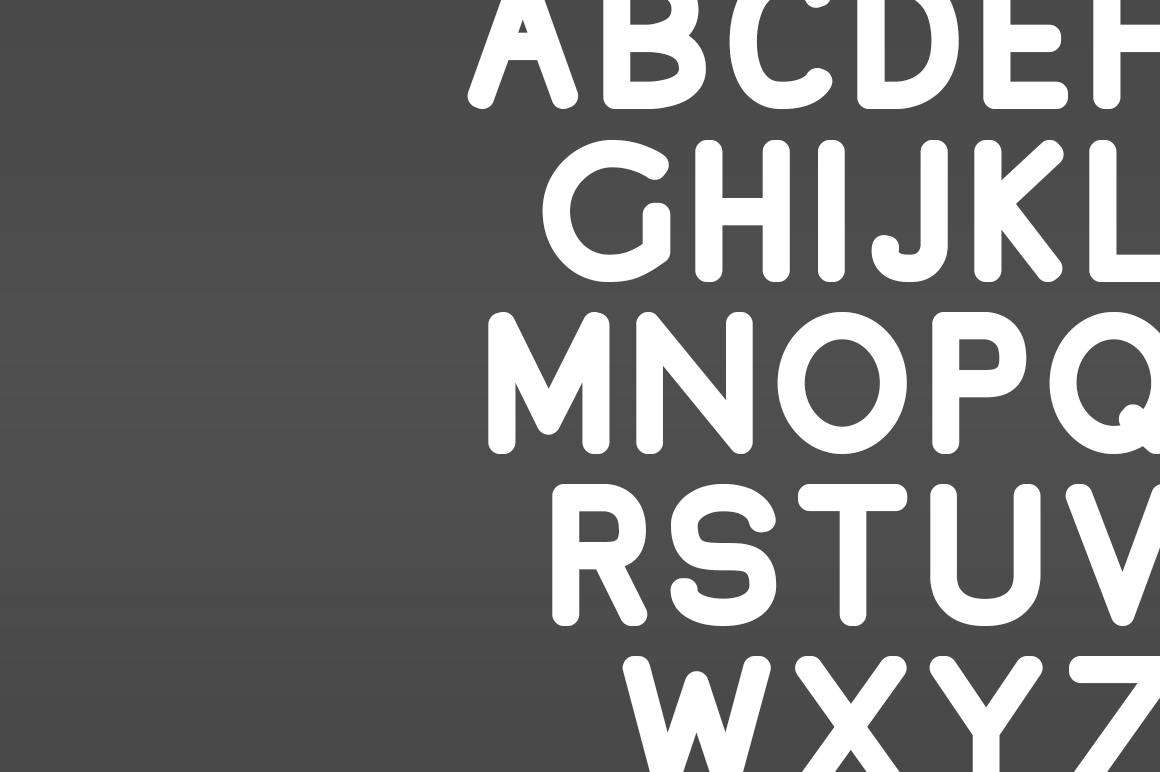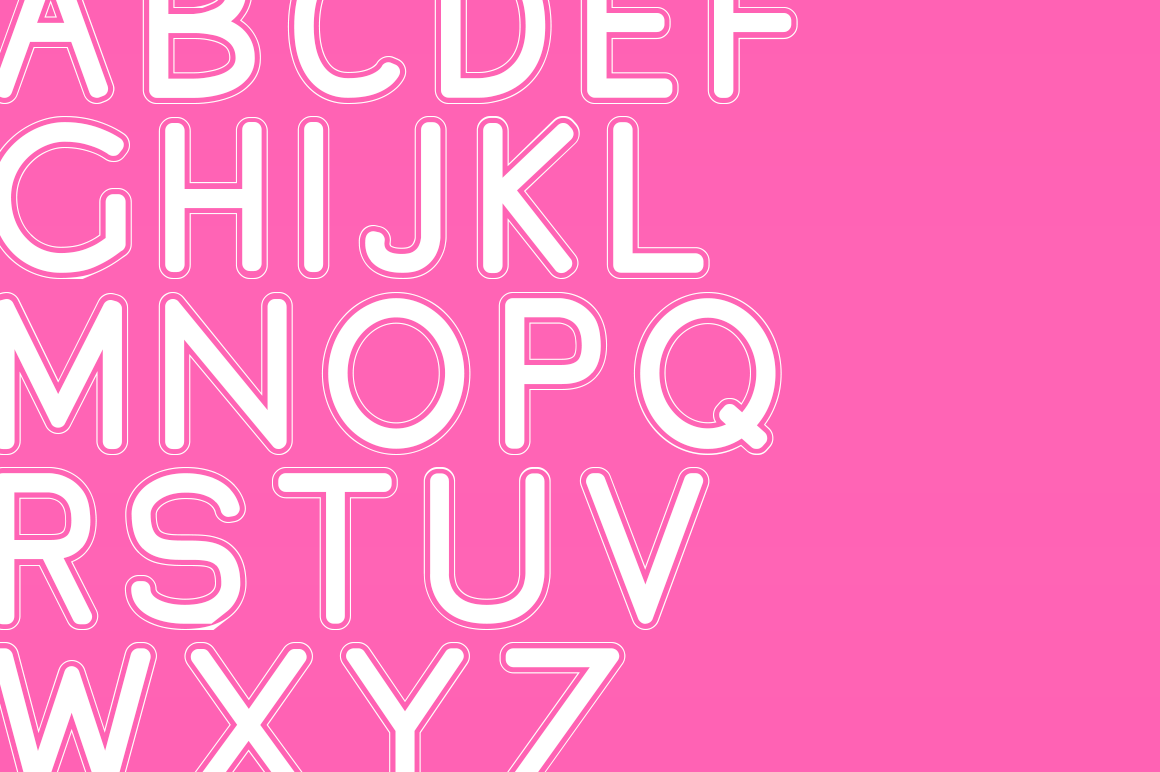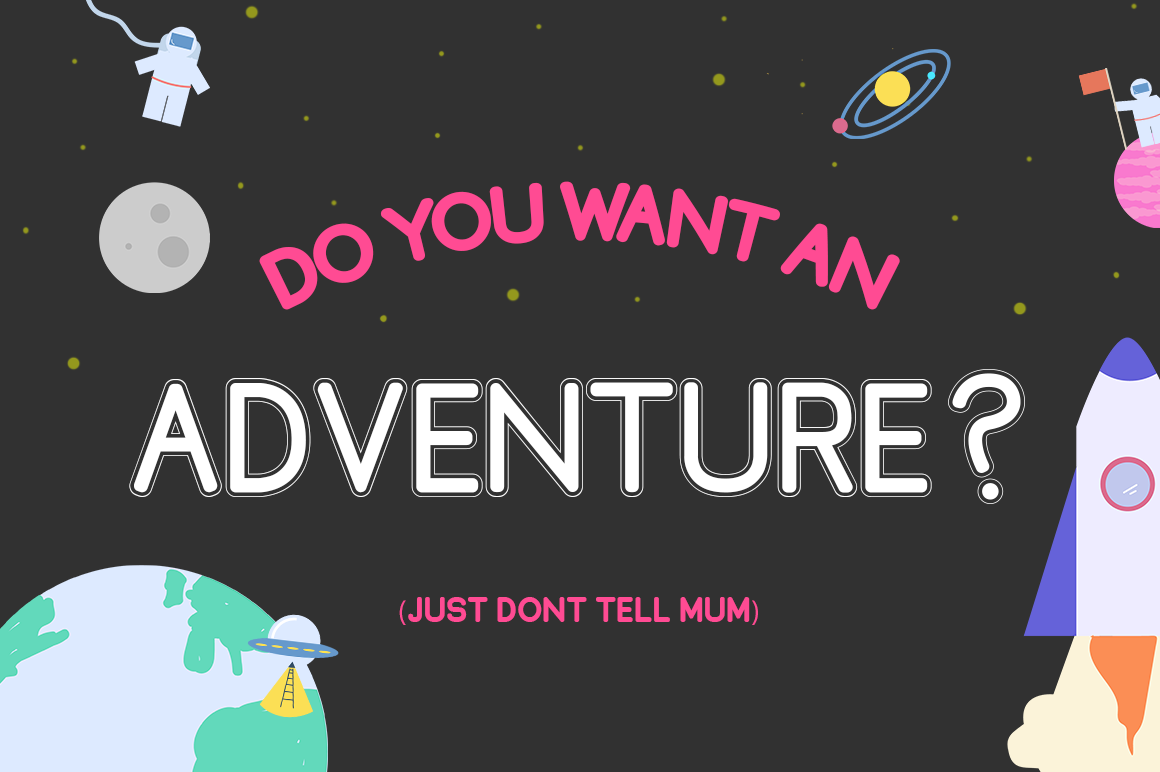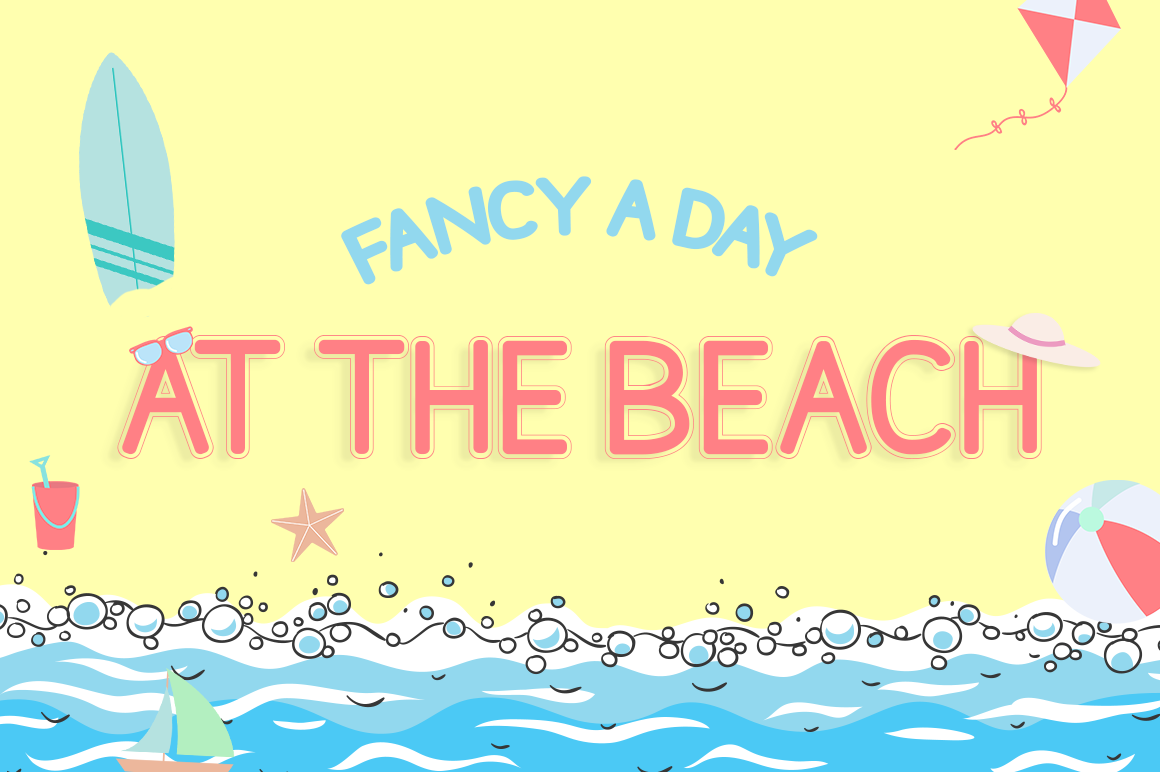
Introducing Chunky Monkey Font: The Ultimate Sans Serif for Headlines and Displays
Are you tired of using the same old fonts for your design projects? Look no further than Chunky Monkey Font, a stunning sans serif font that’s perfect for headlines and displays. With its simple yet versatile design, Chunky Monkey is a must-have for designers and crafters looking to add a touch of personality to their work.
What is Chunky Monkey Font?
Chunky Monkey Font is a gorgeous sans serif styled font that’s designed to make a statement. Its clean and simple lines make it perfect for use in headlines, titles, and displays, while its versatility ensures it looks amazing across a wide range of designs and creative projects.
Key Features of Chunky Monkey Font
- Sans Serif Style: Chunky Monkey Font features a modern sans serif design that’s perfect for creating clean and simple headlines and titles.
- Versatility: This font is extremely versatile and looks amazing across a wide range of designs and creative projects, from digital displays to print materials.
- Easy to Read: Chunky Monkey Font is designed to be easy to read, even at smaller sizes, making it perfect for use in body text as well as headlines.
- Highly Customizable: With its simple design, Chunky Monkey Font is highly customizable, allowing you to add your own unique touch to your designs.
Uses for Chunky Monkey Font
Chunky Monkey Font is perfect for a wide range of design projects, including:
- Headlines and Titles: Use Chunky Monkey Font to create bold and eye-catching headlines and titles that grab attention.
- Digital Displays: This font is perfect for use in digital displays, such as website headers, social media graphics, and more.
- Print Materials: Chunky Monkey Font looks amazing in print, making it perfect for use in brochures, posters, and other marketing materials.
- Crafting and Scrapbooking: This font is also perfect for crafters and scrapbookers looking to add a personal touch to their projects.
Why Choose Chunky Monkey Font?
So why choose Chunky Monkey Font over other fonts? Here are just a few reasons:
- Unique Design: Chunky Monkey Font features a unique and stylish design that’s sure to stand out from the crowd.
- High-Quality: Chunky Monkey Font is a high-quality font that’s designed to produce crisp and clear results, even at smaller sizes.
Tips for Using Chunky Monkey Font
Here are a few tips for getting the most out of Chunky Monkey Font:
- Use it Bold: Don’t be afraid to use Chunky Monkey Font in bold, eye-catching headlines and titles.
- Experiment with Colors: Try out different colors and color combinations to see what works best with Chunky Monkey Font.
- Pair it with Other Fonts: Chunky Monkey Font pairs well with a wide range of other fonts, so don’t be afraid to experiment with different combinations.
In conclusion, Chunky Monkey Font is a stunning sans serif font that’s perfect for designers and crafters looking to add a touch of personality to their work. With its simple yet versatile design, Chunky Monkey is a must-have for anyone looking to create bold and eye-catching headlines and titles. So why wait? Download Chunky Monkey Font today and start creating amazing designs!